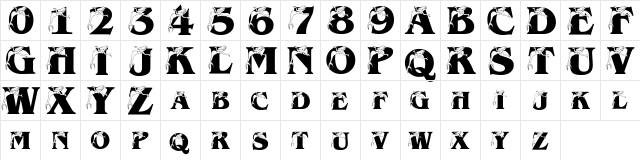
pf_mermaid 300 Regular
Design Context for pf_mermaid 300 Typeface
pf_mermaid 300 is a composed and adaptable typeface that performs quietly and consistently across a wide range of design contexts.